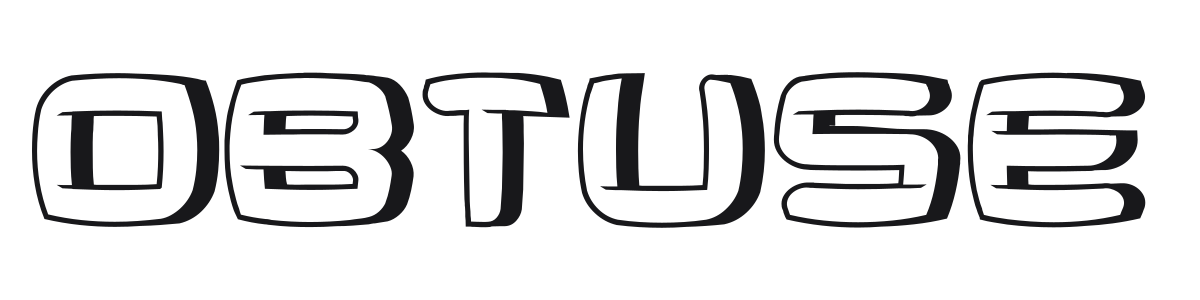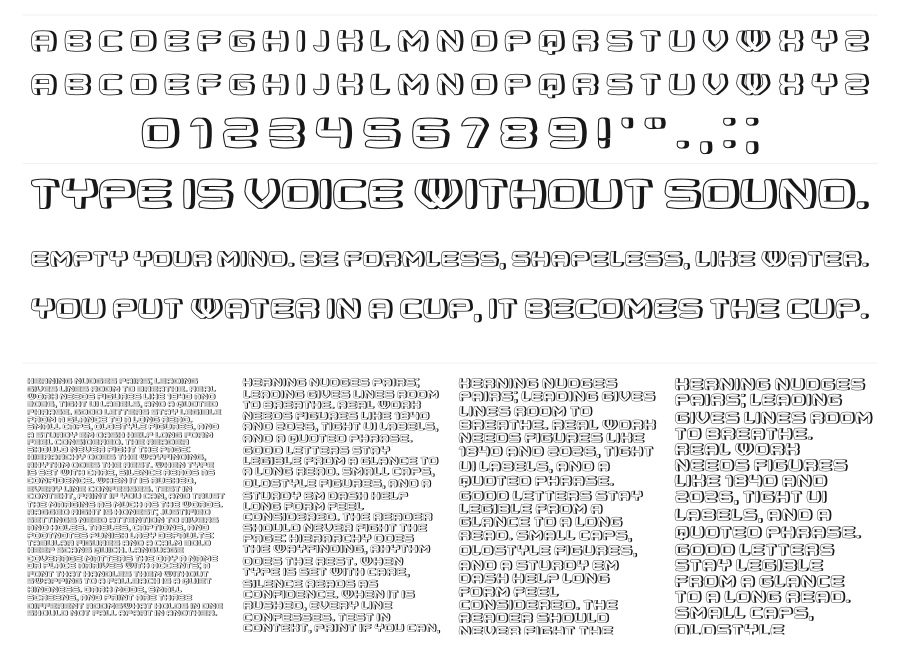
Obtuse
Obtuse is a chunky rounded outline display font with a bold, inflated block construction and a retro-futuristic edge. The double-contour inline treatment gives each character a strong graphic presence at large sizes, evoking 1970s arcade signage and sci-fi title cards. It carries its weight well in posters, game titles, and anywhere that needs a confident, playful shout.